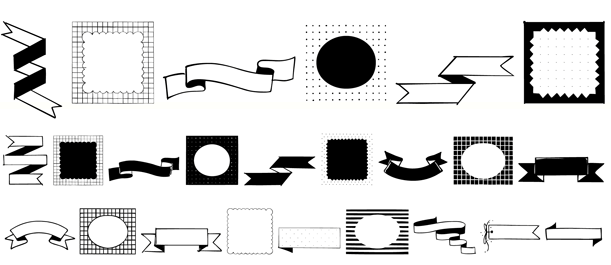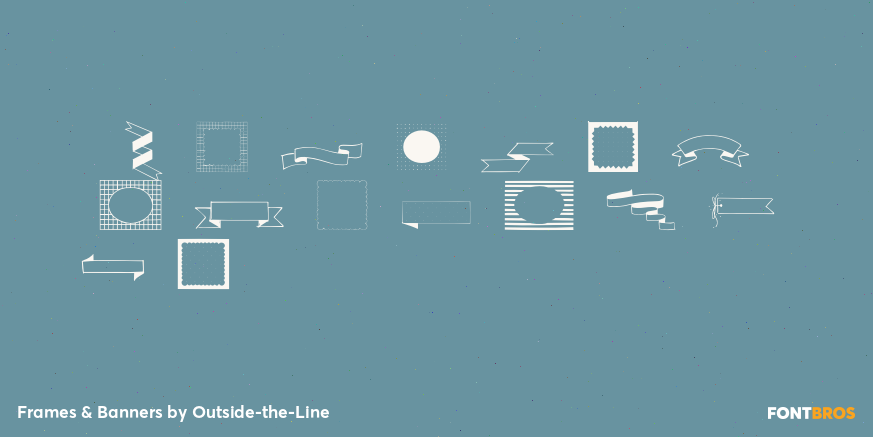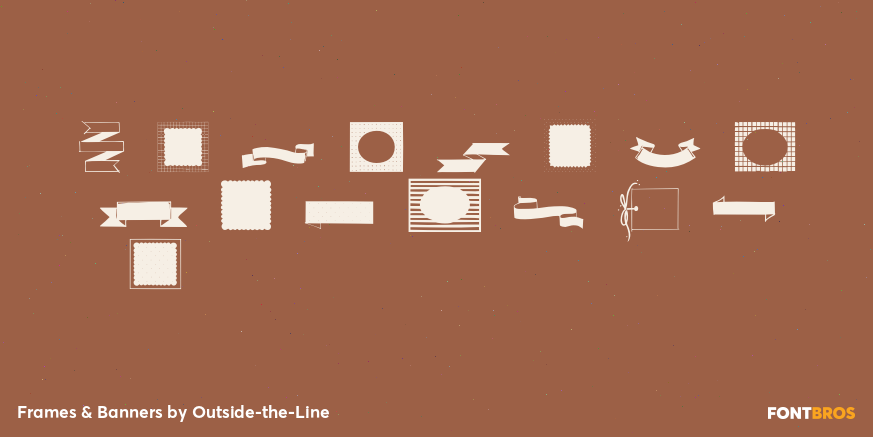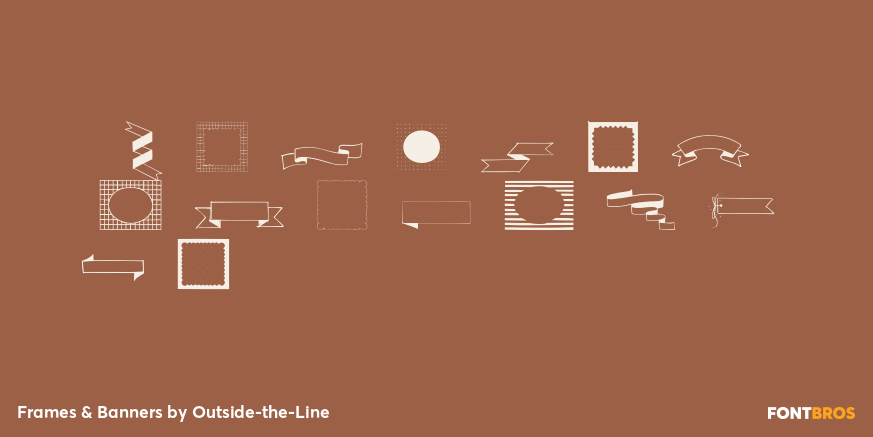
Frames & Banners
Font Family by Outside-the-Line
32 illustrations of 15 Frames and 17 Banners. Most are line drawings with a reverse version. Lots of dots and grids, scallops and stripes to mix and match. Quick way to add some punch to your layouts. Great for mailing labels, labeling for jars, borders for this and that. Nice scrapbook additions too.